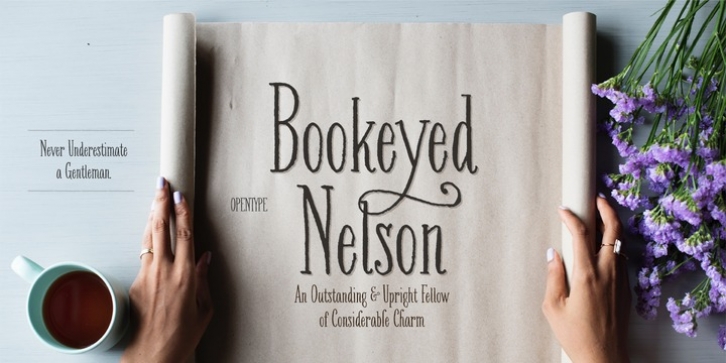
Meet Bookeyed Jack, Suzanne and Nelson!
Bookeyed Jack is strong enough to command the page, yet he doesn't complain when others get more attention. His handsome good looks were handdrawn with pointed pen in walnut ink. He adores books & music, posters & stationery and spending time with his stylish cousin Suzannne.
Our darling Suzanne, she's personable and flexible with a large number of alternative glyphs & ligatures to customize her appearance. A modern girl with vintage charms, she's equally comfortable placed as center of attention or in a supporting role. Her stylish serifs were created with antique French nibs dipped in walnut ink. Suzanne (like her cousin Jack) loves books for adults & children, posters, stationery, weddings, gifts and sugary sour candy.
Together they are a class act on posters, book covers, stationery, logotypes, you name it.